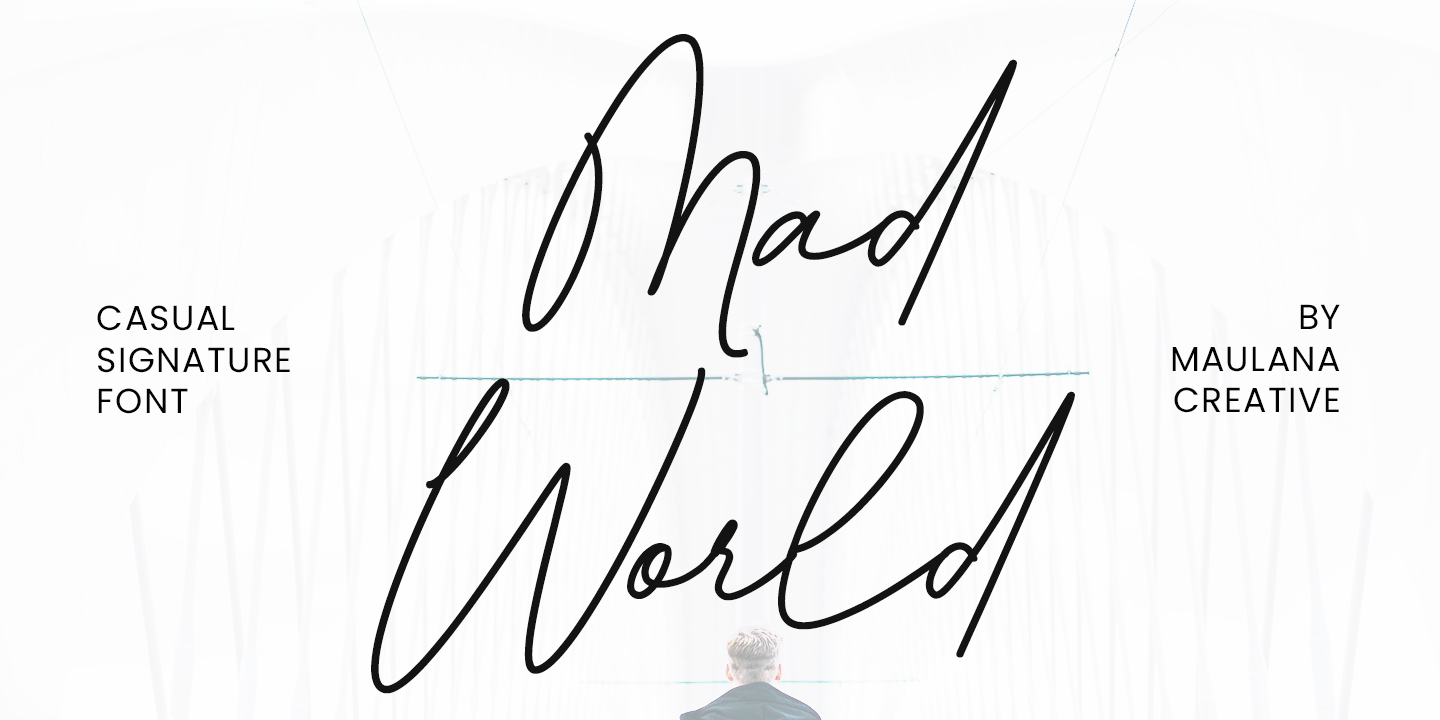
Mad World Font is ideal for edgy alternative branding, rebellious music projects, dystopian book covers, underground event graphics, anarchic fashion labels, chaotic art exhibitions, and disruptive creative campaigns.
What makes Mad World Font exciting is its rebellious energy and chaotic creativity, featuring disruptive letterforms that capture the essence of unconventional expression while delivering provocative visual impact and alternative authenticity.
The Mad World Font family includes Light, Regular, Medium, Bold, and Heavy weights, plus distorted variants and rebellious alternates that enhance the font's chaotic character and disruptive possibilities.
Mad World Font Free Download embodies the raw power of alternative expression and the uncompromising spirit of creative rebellion through provocative typography design. This disruptive typeface captures the chaotic energy of underground culture and the fearless pursuit of unconventional artistic vision, creating a rebellious visual language that speaks to artists and creators who value alternative expression, creative disruption, and the transformative power of challenging conventional boundaries. The font's chaotic character and rebellious appearance make it perfect for alternative music labels, underground publications, and disruptive creative organizations that want to communicate authenticity, rebellion, and the compelling appeal of unconventional artistic expression.
Alternative brands and underground creative organizations consistently choose Mad World Font for projects that require authentic rebellious credibility and provocative visual impact. The typeface's disruptive construction and chaotic personality make it exceptionally effective for alternative music venues, underground art galleries, and rebellious fashion brands where creative disruption and alternative authenticity are paramount. Each character has been crafted with rebellious precision to ensure maximum impact across all alternative applications and unconventional environments.
The creative advantages of Mad World Font extend beyond its rebellious appeal to include practical functionality for diverse alternative applications. The font maintains excellent readability in underground settings while delivering the distinctive character that creates memorable rebellious experiences and connects with audiences seeking authentic alternative expression. Its comprehensive character set includes anarchic symbols and disruptive elements that make it particularly suitable for underground documentation and rebellious communication.
Alternative music labels, underground art venues, and rebellious creative organizations frequently incorporate Mad World Font into their brand identity systems because of its ability to instantly convey alternative authenticity and creative rebellion. The typeface's chaotic aesthetic helps establish credibility in underground markets while appealing to audiences who value creative disruption, alternative culture, and the powerful experiences that come from authentic rebellious expression and unconventional artistic vision.